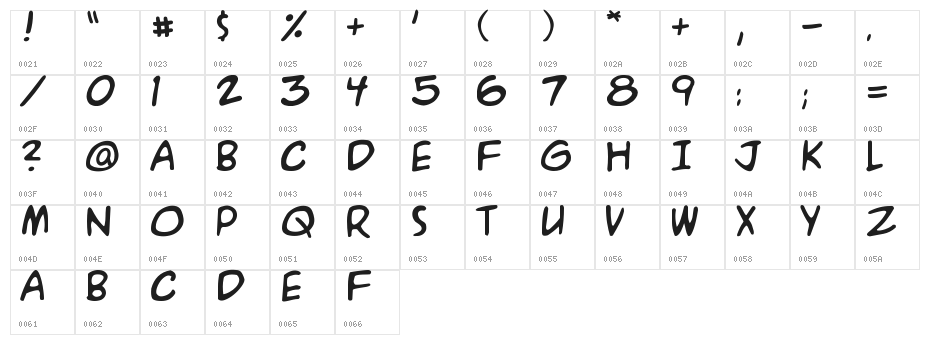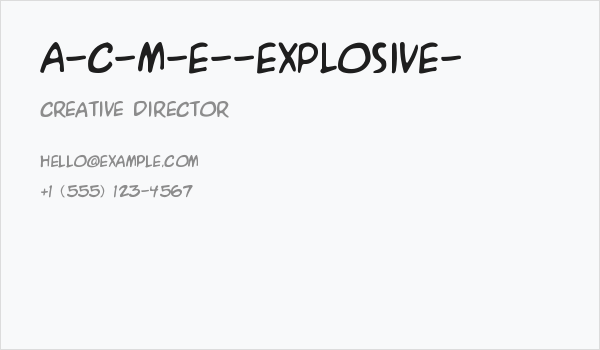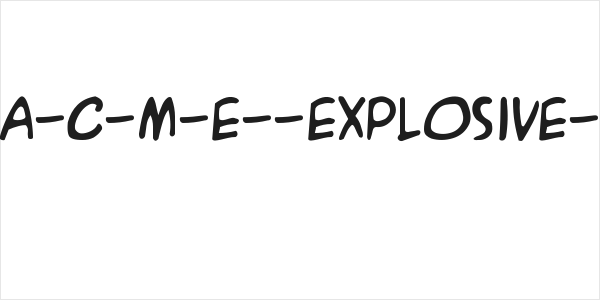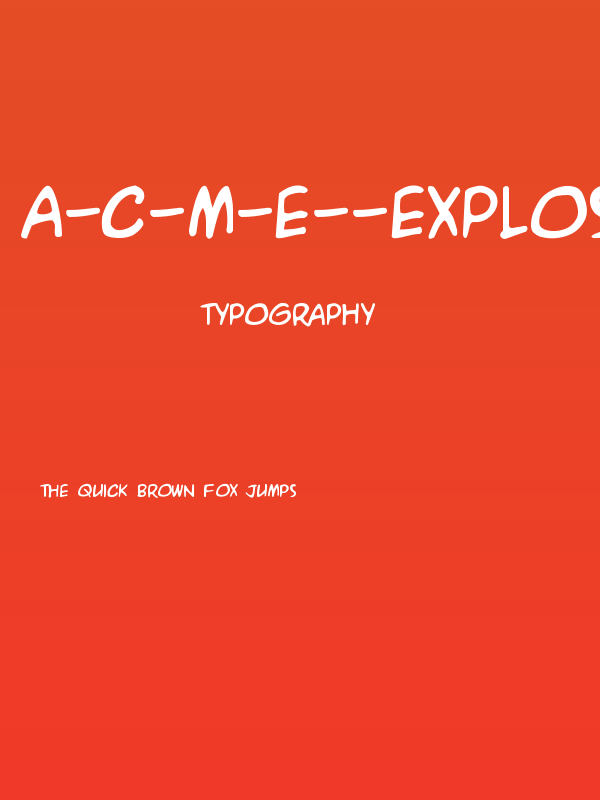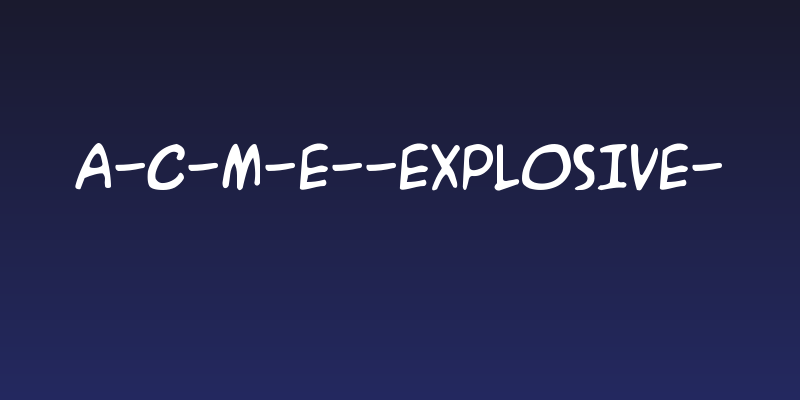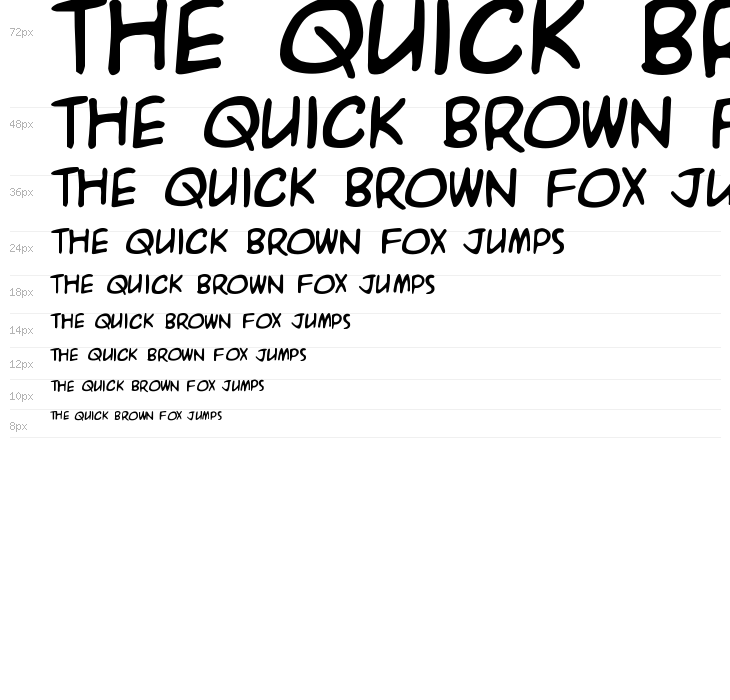
A-C-M-E--Explosive- Font
A-C-M-E--Explosive- Description
This font features a playful and energetic style with a handwritten appearance. The letters are bold and rounded, giving a sense of movement and dynamism. The uppercase and lowercase characters maintain a consistent flow, with slightly exaggerated curves and a casual, informal tone. The numerals and special characters follow the same lively design, making the font suitable for creative and fun projects. Its unique style captures attention while remaining legible, making it ideal for headlines or branding that requires a touch of personality.
| Proposed Projects | Ideal for children's books, comic strips, playful branding, and event posters. |